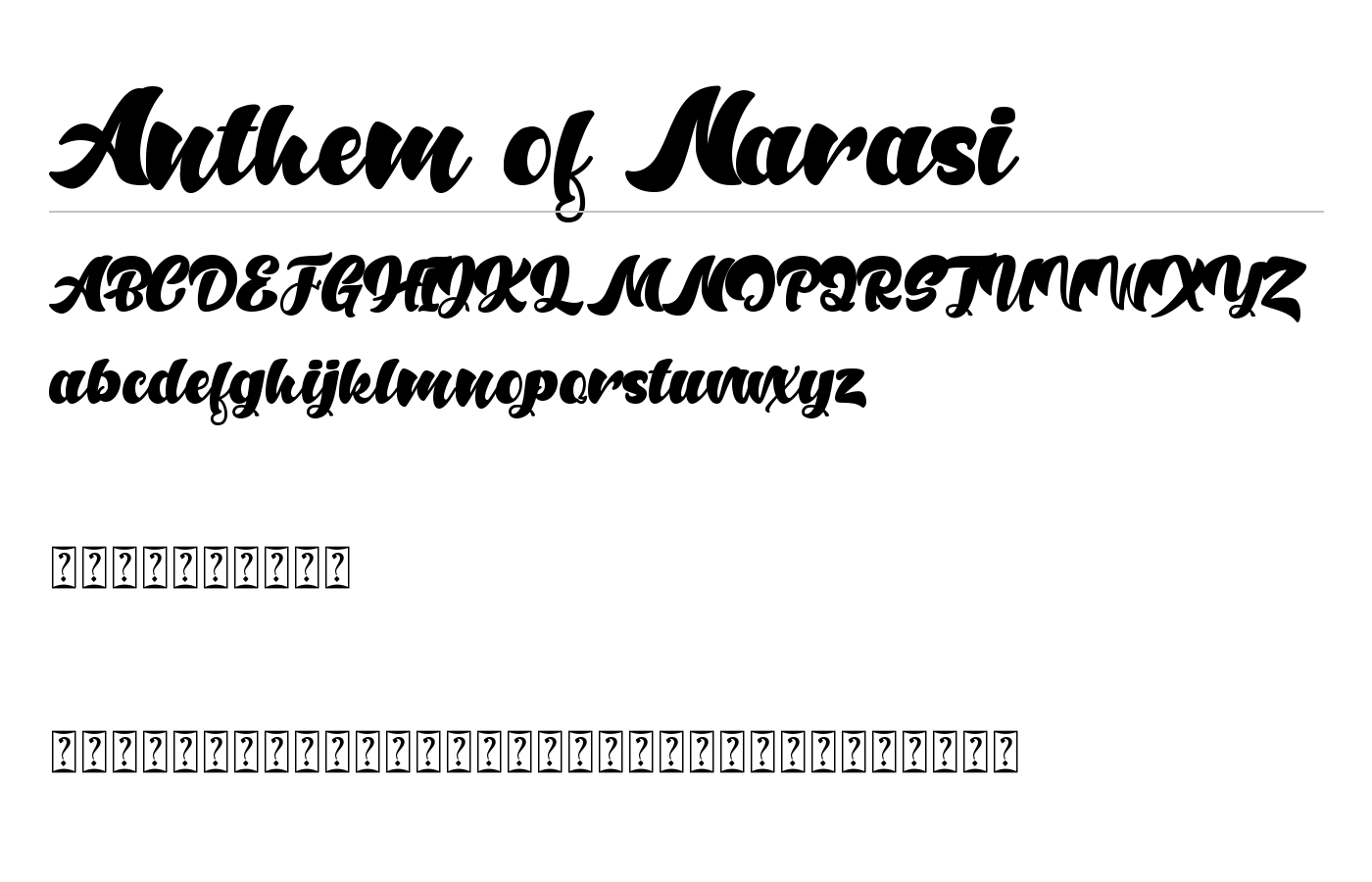
Anthem of Narasi is a bold, script-style font characterized by its flowing, brush-like strokes and high contrast between thick and thin lines. It features rounded, soft edges and lively, connected letterforms that give it an energetic and inviting feel, making it ideal for creative headlines, logos, and branding that require a personal, handcrafted touch. This font shines in designs where a strong, stylish, and approachable personality is needed.
Anthem of Narasi Font
About Anthem of Narasi Font
| Font family | Anthem of Narasi Font |
| Designer | Aldedesign 2019 |